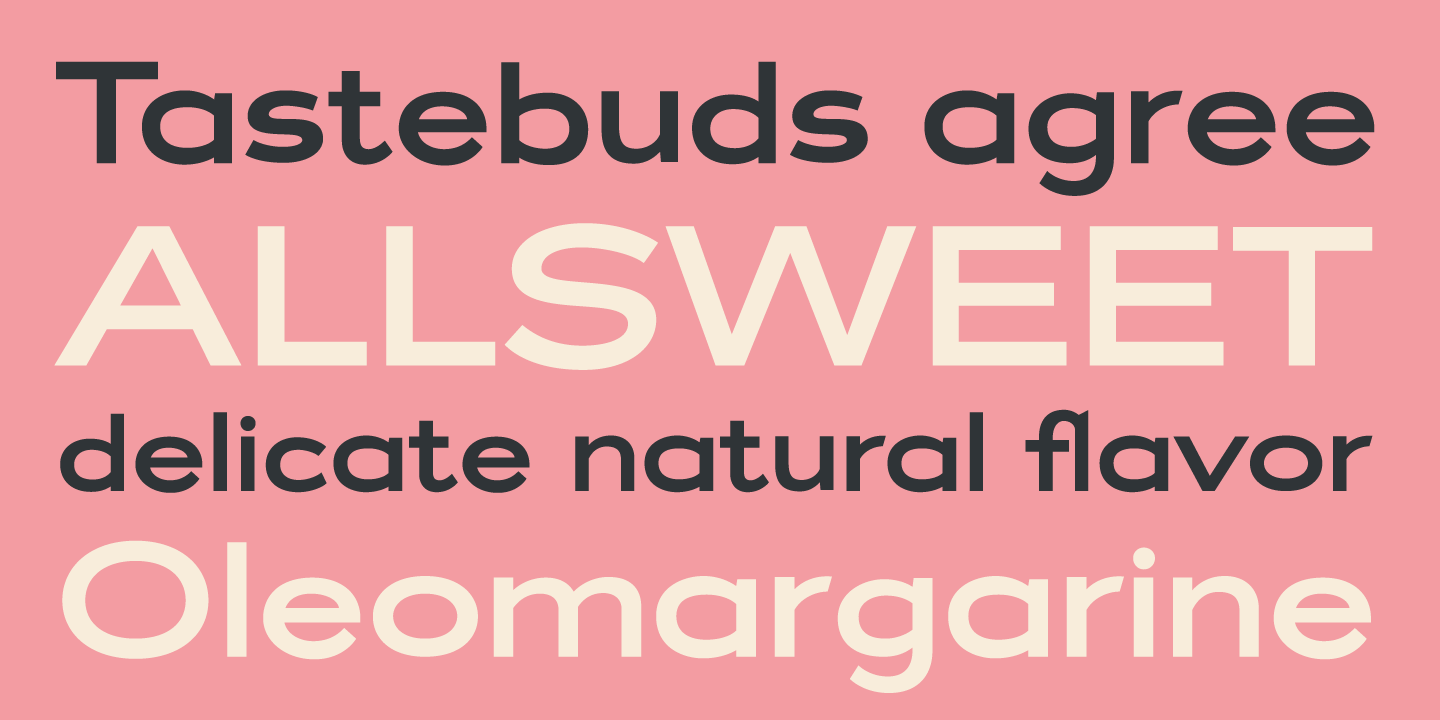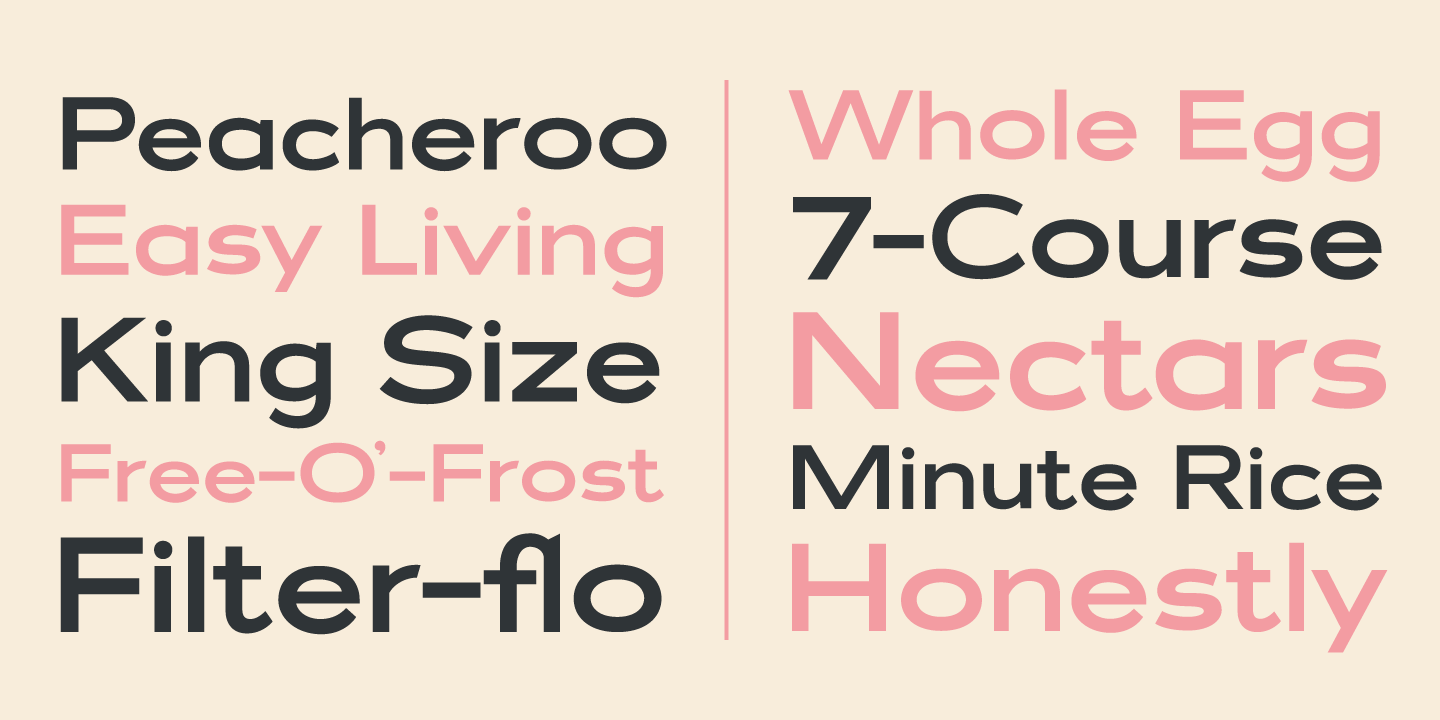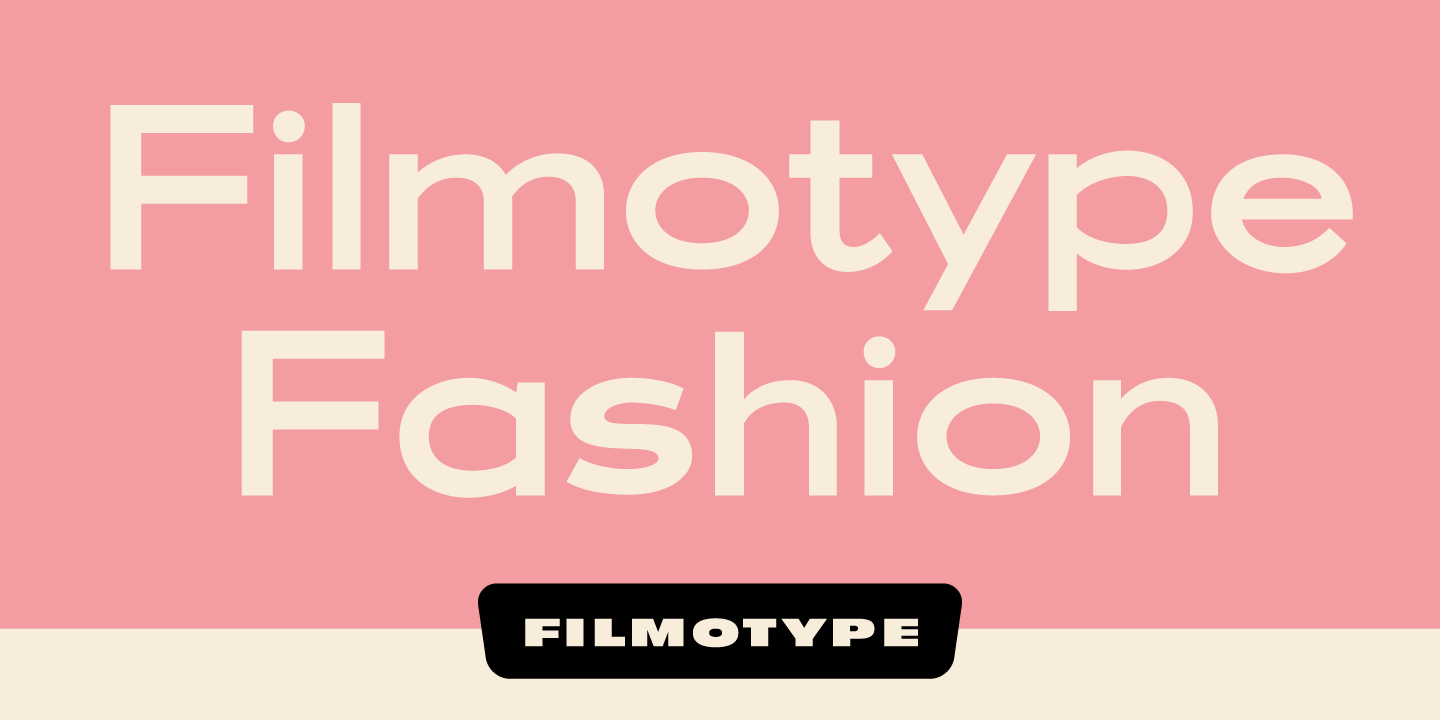
Filmotype Fashion
About Filmotype Fashion
Initially designed in the early-to-mid 1950s, Filmotype Fashion picks up where Futura left off. With a looser take on a geometric design and drawn wider to capture a more sophisticated 1960s visual aesthetic, it retains a classic and timeless feel. Remastered…